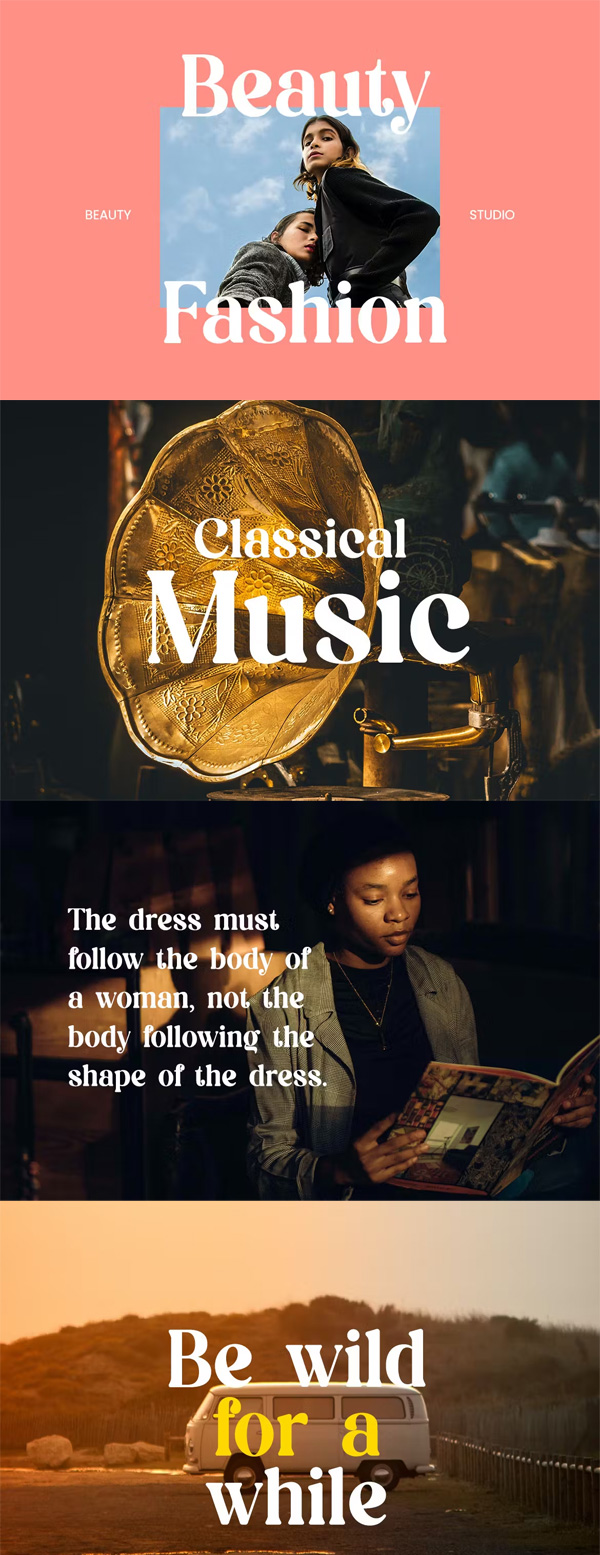
Psychedelic Modern Retro Serif Font
Here in this post, you can Free Download Psychedelic Modern Retro Serif Font JSLFB7U compress files through the below link. Introducing our new product the name is Psychedelic Modern Retro Serif Fonts. Psychedelic Modern Retro Serif Fonts that feel beautiful classy, elegant, and modern. You Can Also Download The Big Cute Fonts Bundle.
Psychedelic Modern Retro Serif Font
This font is perfectly suited for a wide variety of projects, such as signature, stationery, logo, wedding, typography quotes, magazine or book covers, website headers, clothing, branding, packaging design, and more. Also, fashion-related branding or editorial design displays both masculine and feminine qualities. You Can Also Download 50 Script Fonts Bundle.
Psychedelic Modern Retro Serif Font